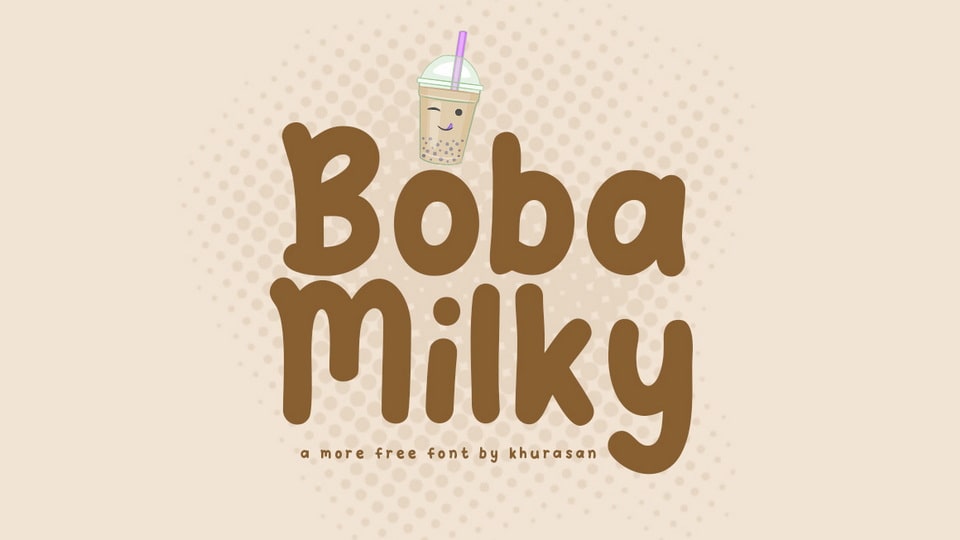
Download Boba Milky font, a playful and cute handwritten typeface. Boba Milky is perfect for all your graphic design projects like posters, logos, magazines, book covers, banners and so on.